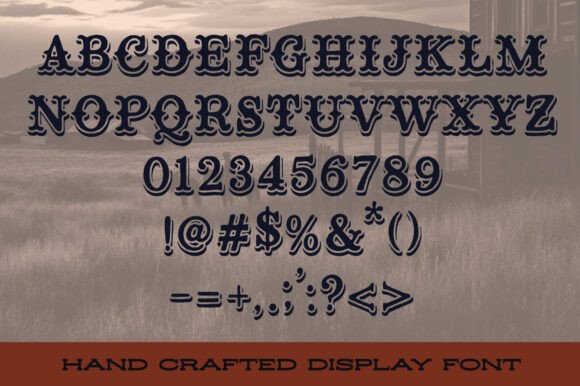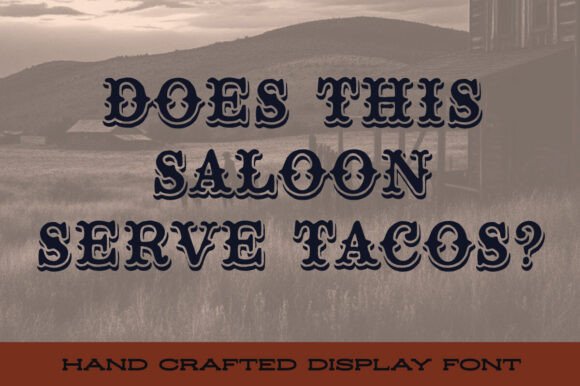
The Wild West of Typography: A Deep Dive into Dusty Saloon Font
I’ll never forget the design project that led me to discover the Dusty Saloon font. I was working on a branding project for a client’s new craft whiskey label, and I needed a font that would evoke the rugged, old-school charm of the American frontier. After hours of scouring font libraries and online marketplaces, I stumbled upon Dusty Saloon – and it was love at first sight! ✨
An Honest Review: What I Love (and What I Don’t)
So, what makes Dusty Saloon so special? Here are a few things that I absolutely love about this font:
- ✅ Authentic Western vibe: The moment I saw the font preview, I knew it was exactly what I needed. The bold, vintage letterforms with a built-in drop shadow instantly transported me to the Wild West.
- ✅ Highly legible: Despite its bold and ornate design, Dusty Saloon is surprisingly easy to read – even at smaller font sizes.
- ✅ Versatile: This font is perfect for a wide range of design projects, from saloon signs and wanted posters to whiskey labels and craft packaging.
Of course, no font is perfect, and Dusty Saloon has a few minor quirks:
- ⚠️ Limited character set: While the font includes a range of standard characters, it’s not a full Unicode font – so you may encounter limitations when trying to use non-English characters or special symbols.
- 🤔 No italic or oblique versions: If you need an italic or oblique version of the font, you’ll need to get creative with font manipulation or pair it with a complementary font.
The Story Behind Dusty Saloon
According to the font’s designer, Dusty Saloon was inspired by the classic typography of the American West – think vintage saloon signs, wanted posters, and whiskey labels. The designer spent countless hours researching and digitizing vintage fonts, combining them with modern typography techniques to create a truly unique and authentic font.
| Font Name | Dusty Saloon Font |
| Author | stompstock |
| What type of projects is Dusty Saloon best suited for? | Dusty Saloon is perfect for designs that need a bold, Western-inspired feel – like saloon signs, wanted posters, whiskey labels, and craft packaging. |
| Is Dusty Saloon a full Unicode font? | No, Dusty Saloon has a limited character set – so you may encounter limitations when trying to use non-English characters or special symbols. |